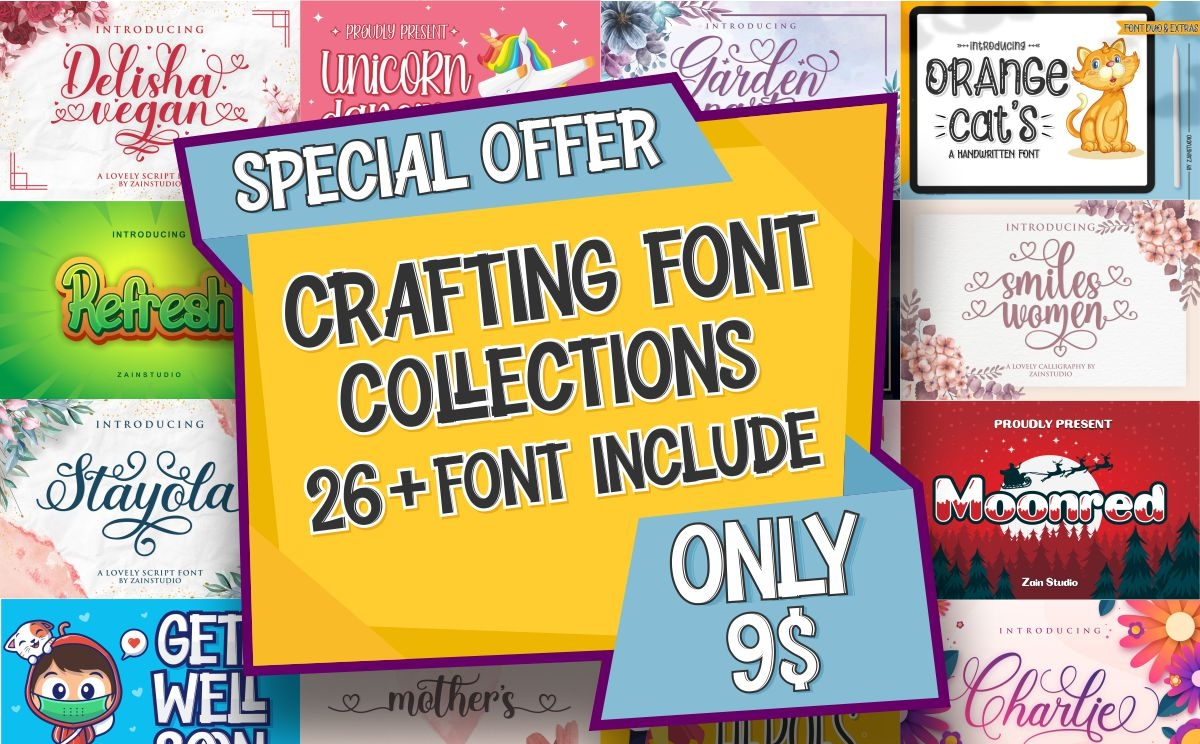
The Crafting Font Bundle offers a diverse selection of unique typefaces designed to elevate your creative projects. This collection includes a variety of font styles, from elegant scripts to bold display fonts, catering to different design needs.
- Multiple font styles: Script, Serif, Sans-serif, and Display
- Various weights for versatility in design
- 10 unique fonts
- Character sets for multilingual support
- Basic punctuation and special characters
Ideal for branding, logos, web design, print materials, and UI projects. Choose the right font style to match the tone of your project for maximum impact.